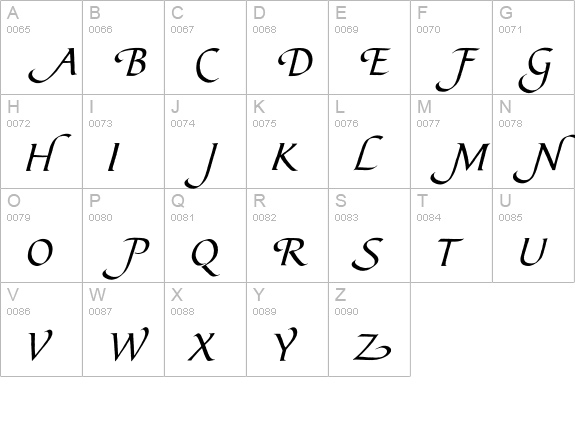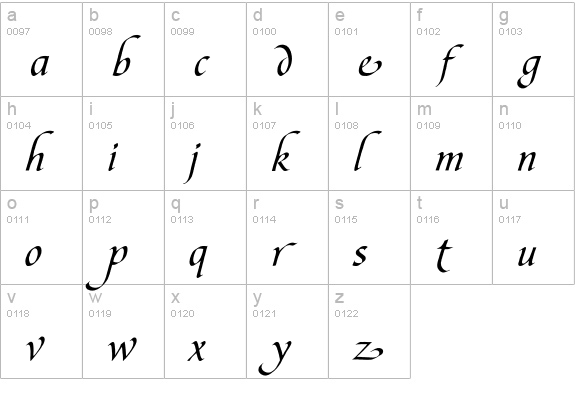
BibleScriptEF-Alternates Font Details
BibleScriptEF-Alternates font is a beautiful and elegant typeface designed to bring a classic and timeless feel to your design projects. With its intricate details and graceful curves, this font is perfect for adding a touch of sophistication to any text. The alternate characters offer versatility and customization options, allowing you to create unique and personalized designs. Best of all, BibleScriptEF-Alternates font is available for free download at FontsMarket.com. Whether you're working on invitations, logos, or any other creative project, this font will elevate your work to the next level. Don't miss out on the opportunity to enhance your designs with this exquisite typeface!